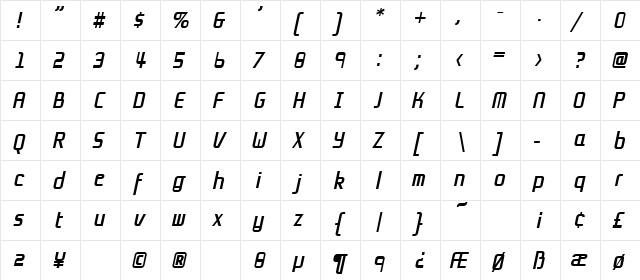
Grov AB Italic
Design Context for Grov AB Typeface
Grov AB takes a measured approach to typography — its balanced proportions and neutral character make it a reliable workhorse for both digital and print work. Its italic angle brings a sense of urgency and motion to the letterforms.
Pro Tip: Try Grov AB for annotation and caption copy alongside an upright companion — the contrast in angle creates a dynamic but ordered typographic system.